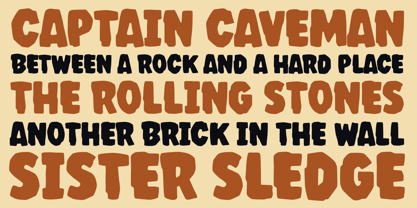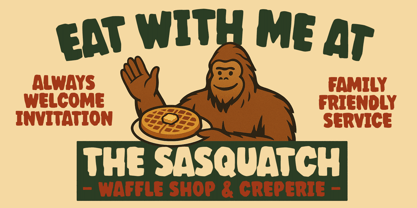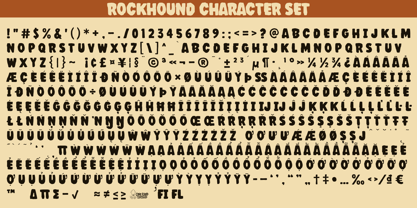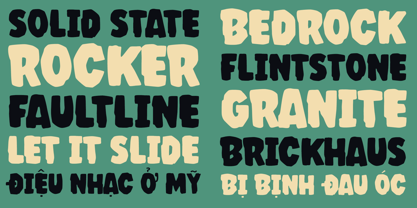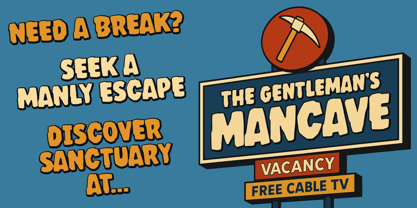
Rockhound
by One Eyed Squid
The Rockhound Font Family was designed by Brian J. Bonislawsky, Dave Cohen and published by One Eyed Squid. Rockhound contains 1 styles.
You'll dig Rockhound, the heavyweight rugged font with the caveman appearance and a teddy bear personality.
(Rockhound contains an extended Latin character set with added Vietnamese support.)